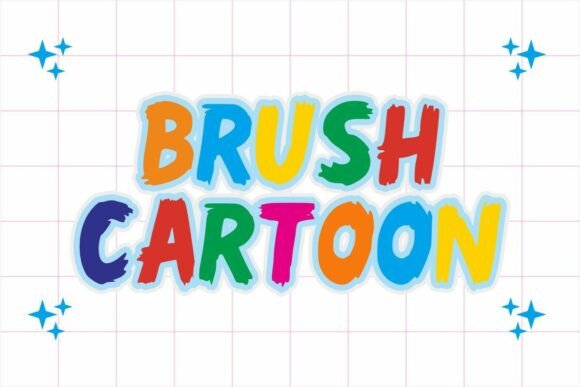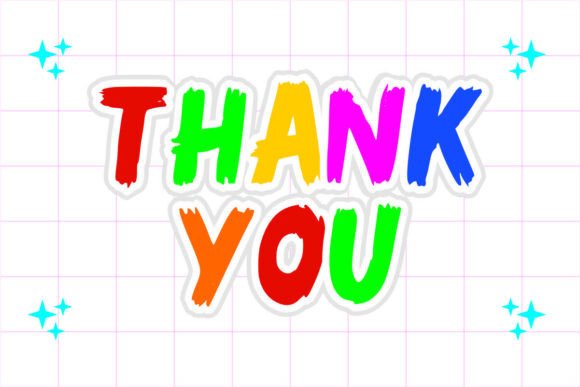
Introducing Filanno Font: The Whimsical Typeface for Creative Projects
In the world of typography, fonts play a crucial role in bringing creative visions to life. For designers, crafters, and animators, finding the perfect typeface can be a game-changer. This is where Filanno Font comes in – a contemporary font designed with a captivating touch of whimsy. In this article, we’ll explore the charm of Filanno, its features, and how it can elevate your projects, especially when paired with sublimation designs.
The Filanno Typeface: A Blend of Charm and Playfulness
The Filanno typeface is a unique and captivating font that exudes charm and playfulness in every character. Its contemporary design makes it an excellent choice for a wide range of creative projects, from animations and comic titles to craft designs and more. With Filanno, you can add a touch of personality to your work, making it stand out from the crowd.
Seamless Compatibility with Sublimation Designs
One of the standout features of Filanno Font is its seamless compatibility with sublimation designs. This means you can easily incorporate it into your projects for various products, such as:
- T-shirts
- Mugs
- Tote bags
With Filanno, you can create stunning designs that will make your products pop. Whether you’re a designer, crafter, or small business owner, this font is perfect for adding a professional touch to your merchandise.
- Animate your stories with a touch of whimsy
- Create eye-catching comic titles that grab attention
- Design unique and captivating craft projects
Why Choose Filanno Font?
So, what makes Filanno Font an excellent choice for your projects? Here are just a few reasons:
- Unique and captivating design: Filanno Font boasts a one-of-a-kind design that will make your projects stand out.
- Playful and charming: This font is perfect for adding a touch of personality to your work.
- Seamless compatibility with sublimation designs: Easily incorporate Filanno into your designs for a wide range of products.
- Easy to use: Filanno Font is user-friendly, making it accessible to designers and crafters of all levels.